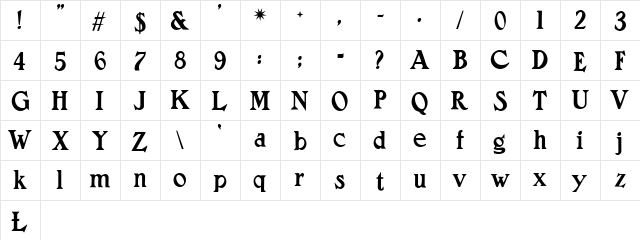
Adramalech Regular
Design Context for Adramalech Typeface
Adramalech offers clean, dependable letterforms without strong stylistic allegiance, making it a practical choice for designers who need flexibility.
Pro Tip: Use Adramalech in both headline and body roles to test its range before committing to a single application.